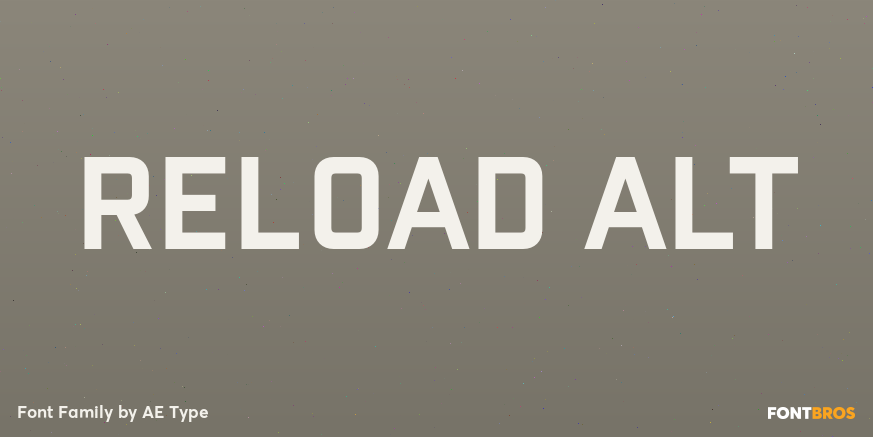
About Reload Alt
Reload Alt is a rounded industrial geometric display typeface available in four flexible and distinct weights. Features include: Slashed zero Romanian s accent language feature Extended language support * Requires an application with OpenType and/or…